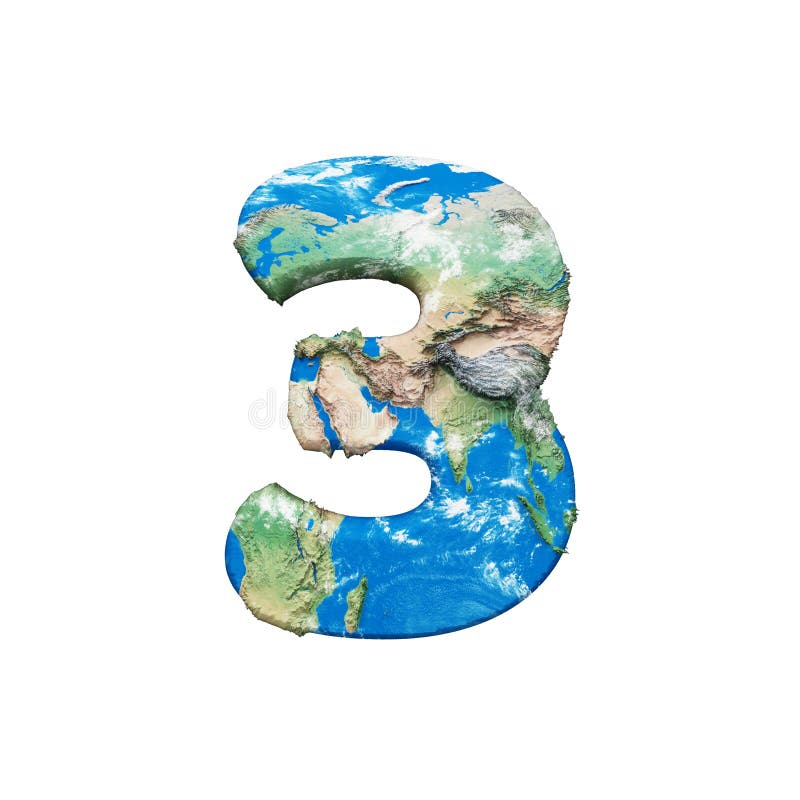
World earth globe alphabet number 3. Global worldwide font with NASA map. 3D render isolated on white background. Typographic symbol from blue and green planet Earth.